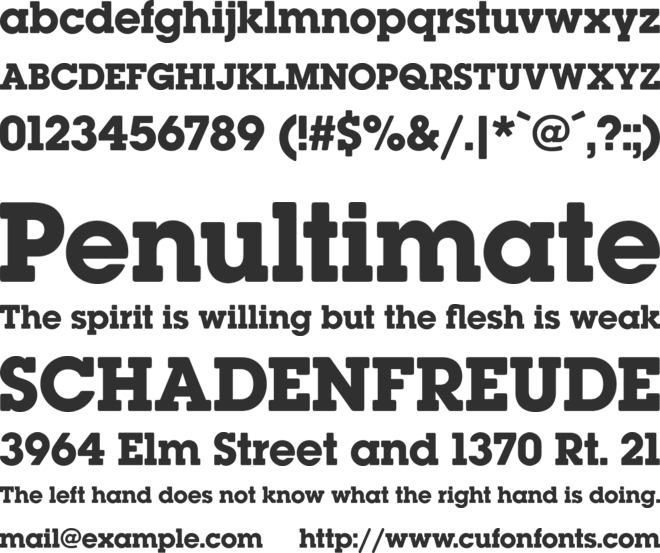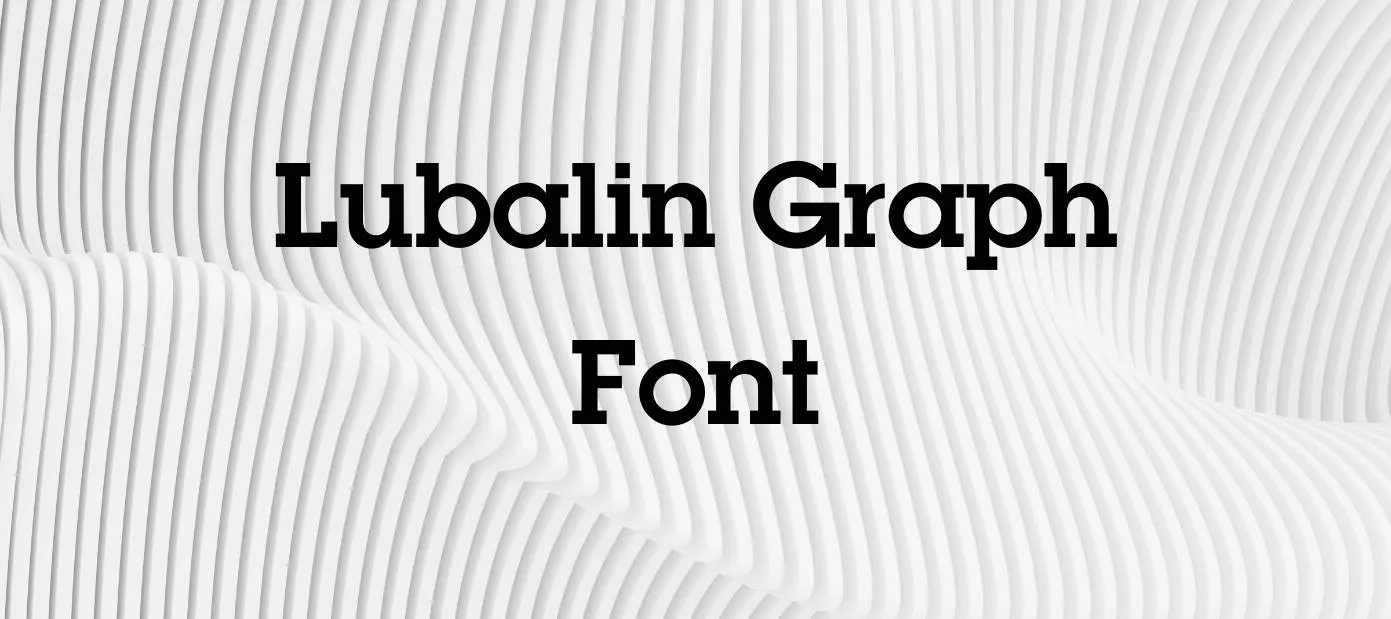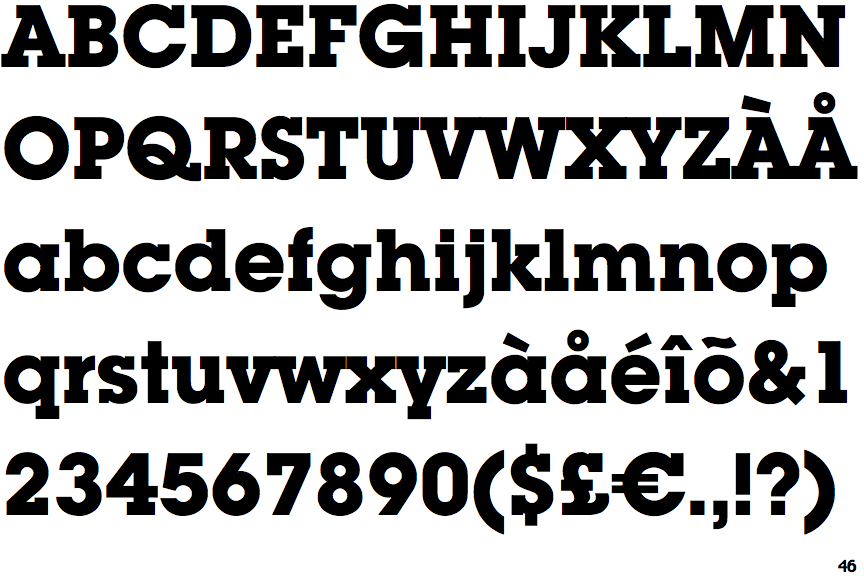
Lubalin Graph Font
Lubalin Graph Font - See examples of its use in. Learn about the history and features of itc lubalin graph, a slab serif typeface designed by herb lubalin in 1974. Itc lubalin graph® was initially designed by herb lubalin and drawn to fit the requirements of typographic reproduction by tony. Fonts are available in truetype,.
See examples of its use in. Learn about the history and features of itc lubalin graph, a slab serif typeface designed by herb lubalin in 1974. Fonts are available in truetype,. Itc lubalin graph® was initially designed by herb lubalin and drawn to fit the requirements of typographic reproduction by tony.
Fonts are available in truetype,. See examples of its use in. Learn about the history and features of itc lubalin graph, a slab serif typeface designed by herb lubalin in 1974. Itc lubalin graph® was initially designed by herb lubalin and drawn to fit the requirements of typographic reproduction by tony.
Learn about the history and features of itc lubalin graph, a slab serif typeface designed by herb lubalin in 1974. Itc lubalin graph® was initially designed by herb lubalin and drawn to fit the requirements of typographic reproduction by tony. See examples of its use in. Fonts are available in truetype,.
See examples of its use in. Fonts are available in truetype,. Learn about the history and features of itc lubalin graph, a slab serif typeface designed by herb lubalin in 1974. Itc lubalin graph® was initially designed by herb lubalin and drawn to fit the requirements of typographic reproduction by tony.
Fonts are available in truetype,. See examples of its use in. Learn about the history and features of itc lubalin graph, a slab serif typeface designed by herb lubalin in 1974. Itc lubalin graph® was initially designed by herb lubalin and drawn to fit the requirements of typographic reproduction by tony.
Itc lubalin graph® was initially designed by herb lubalin and drawn to fit the requirements of typographic reproduction by tony. Learn about the history and features of itc lubalin graph, a slab serif typeface designed by herb lubalin in 1974. Fonts are available in truetype,. See examples of its use in.
ITC Lubalin Graph Font Behance
See examples of its use in. Fonts are available in truetype,. Itc lubalin graph® was initially designed by herb lubalin and drawn to fit the requirements of typographic reproduction by tony. Learn about the history and features of itc lubalin graph, a slab serif typeface designed by herb lubalin in 1974.
Lubalin Graph, Herb Lubalin 1974 Japanese typography, Graphic design
Fonts are available in truetype,. Learn about the history and features of itc lubalin graph, a slab serif typeface designed by herb lubalin in 1974. See examples of its use in. Itc lubalin graph® was initially designed by herb lubalin and drawn to fit the requirements of typographic reproduction by tony.
ITC Lubalin Graph Font Behance
Itc lubalin graph® was initially designed by herb lubalin and drawn to fit the requirements of typographic reproduction by tony. See examples of its use in. Learn about the history and features of itc lubalin graph, a slab serif typeface designed by herb lubalin in 1974. Fonts are available in truetype,.
ITC Lubalin Graph Std Bold Fonts
See examples of its use in. Fonts are available in truetype,. Itc lubalin graph® was initially designed by herb lubalin and drawn to fit the requirements of typographic reproduction by tony. Learn about the history and features of itc lubalin graph, a slab serif typeface designed by herb lubalin in 1974.
Identifont ITC Lubalin Graph Bold
Itc lubalin graph® was initially designed by herb lubalin and drawn to fit the requirements of typographic reproduction by tony. Learn about the history and features of itc lubalin graph, a slab serif typeface designed by herb lubalin in 1974. Fonts are available in truetype,. See examples of its use in.
See Examples Of Its Use In.
Fonts are available in truetype,. Learn about the history and features of itc lubalin graph, a slab serif typeface designed by herb lubalin in 1974. Itc lubalin graph® was initially designed by herb lubalin and drawn to fit the requirements of typographic reproduction by tony.